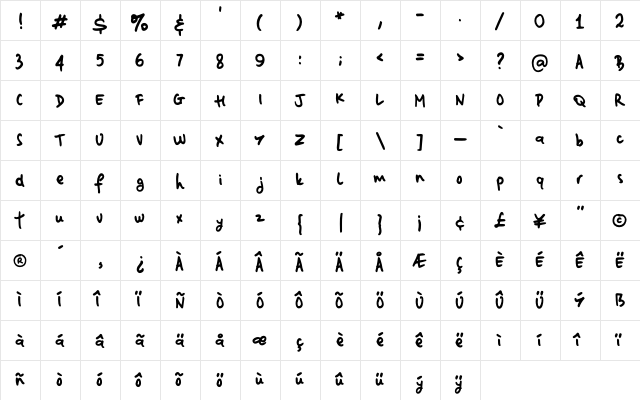
EasyNotes Regular
| Foundry | Ay͡ Atalay |
| Designer | Ay͡ Atalay |
Design Context for EasyNotes Typeface
EasyNotes is a composed and adaptable typeface that performs quietly and consistently across a wide range of design contexts.